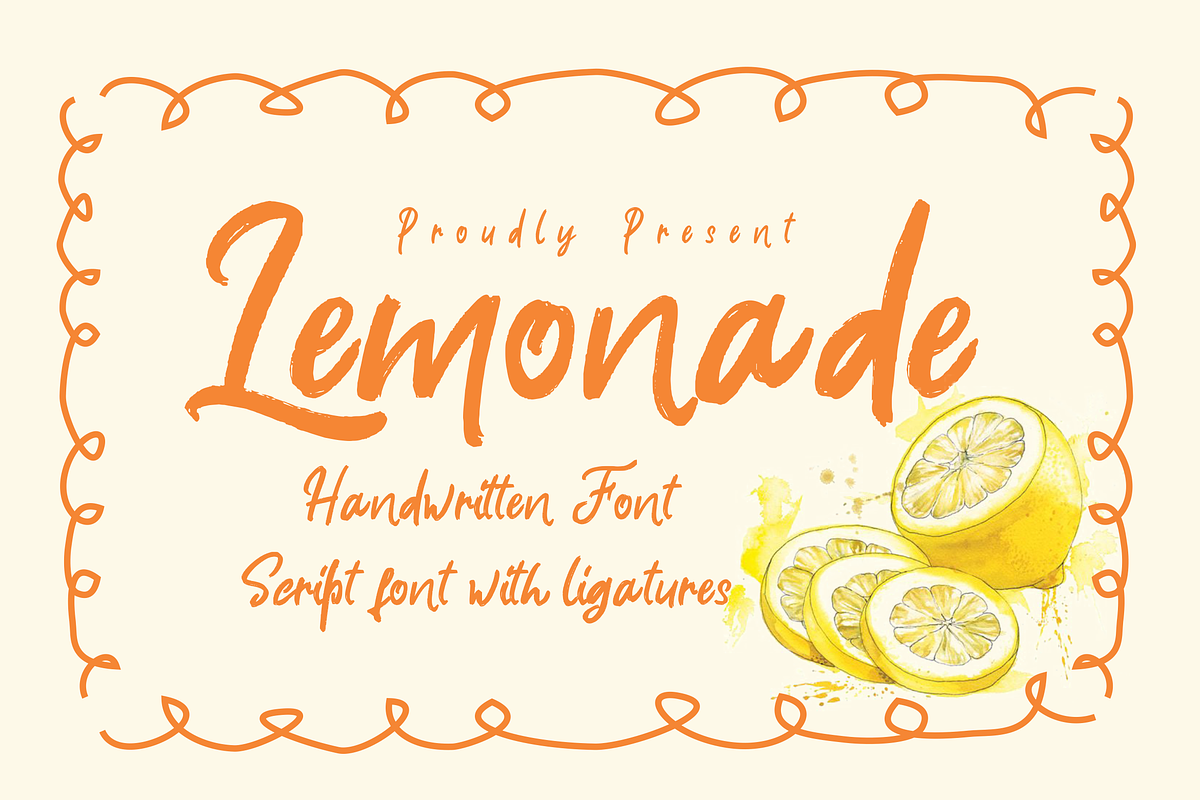
Add a refreshing twist to your design work with Lemonade Font Free Download — a sweet and cheerful typeface that radiates positivity. With its soft curves, friendly personality, and playful vibe, Lemonade is ideal for branding, product packaging, kids’ designs, and summer-themed projects that call for a lighthearted touch.
This versatile display font shines in both digital and print media. Whether you're working on logos, invitations, or social media posts, Lemonade brings a charming and modern flair. It comes with uppercase, lowercase, numerals, and punctuation, making it a well-rounded option for testing creative ideas.